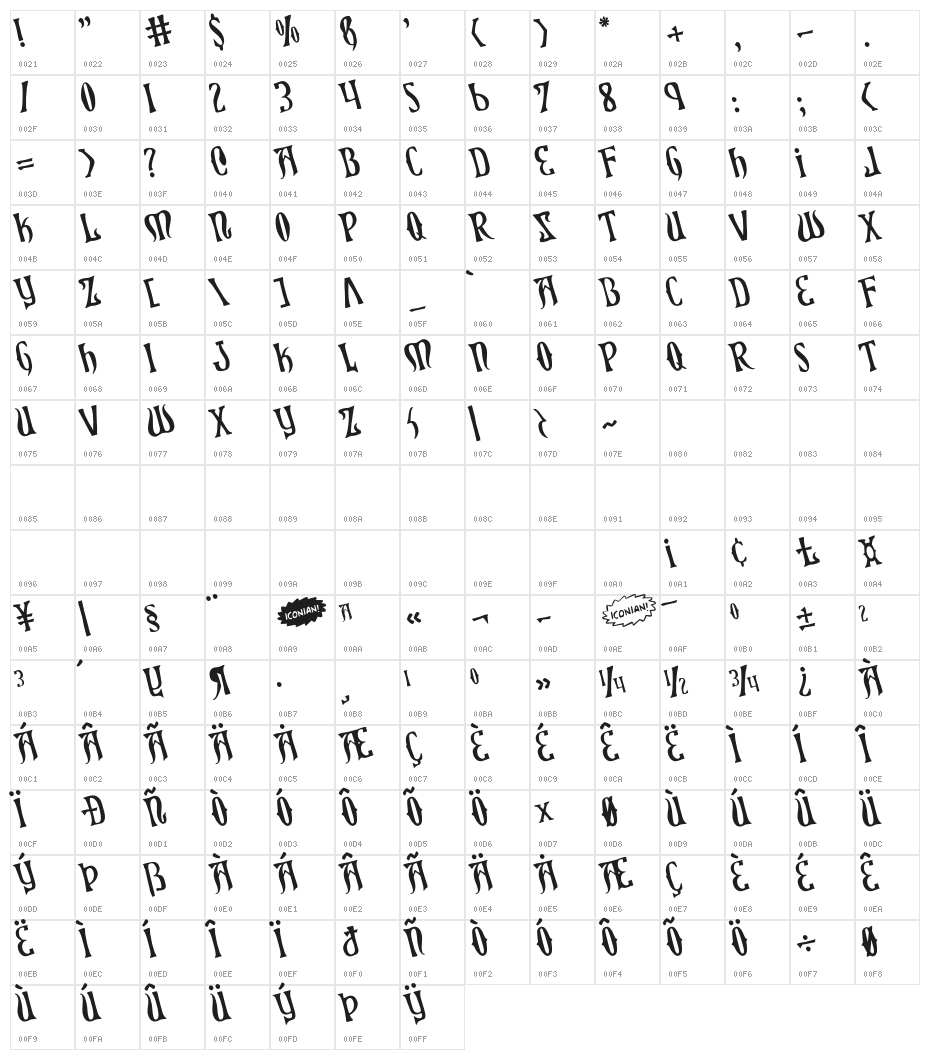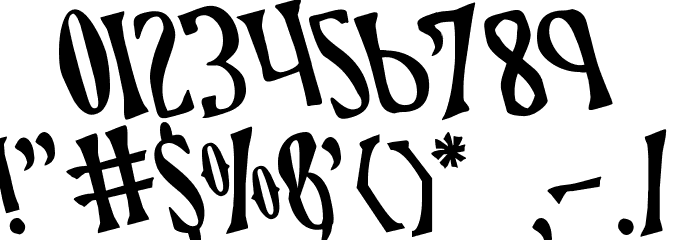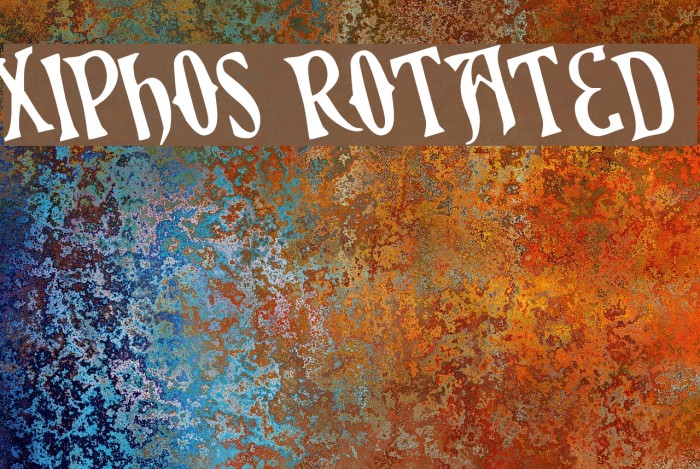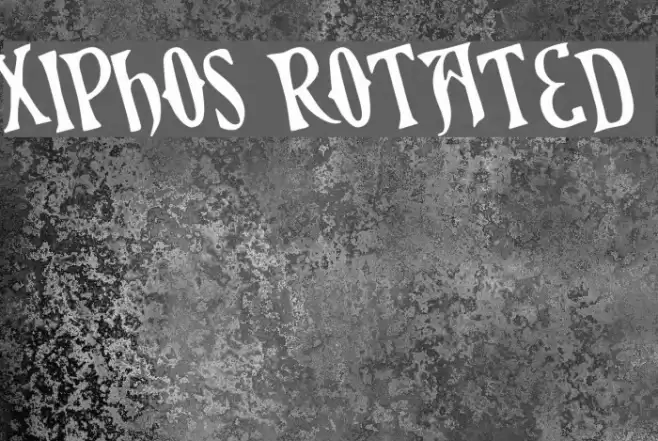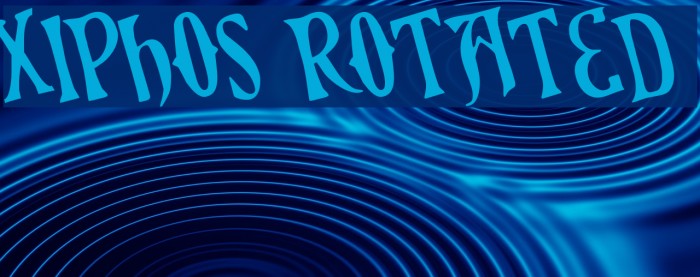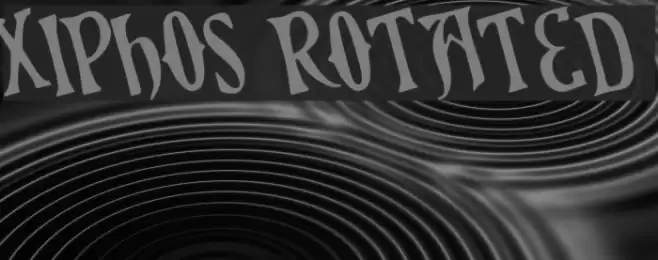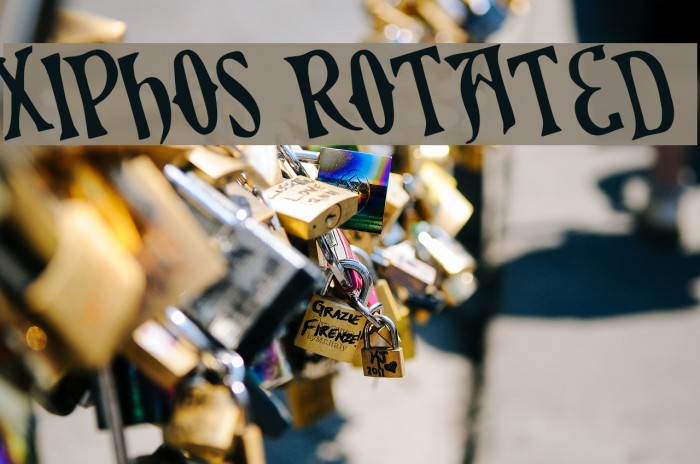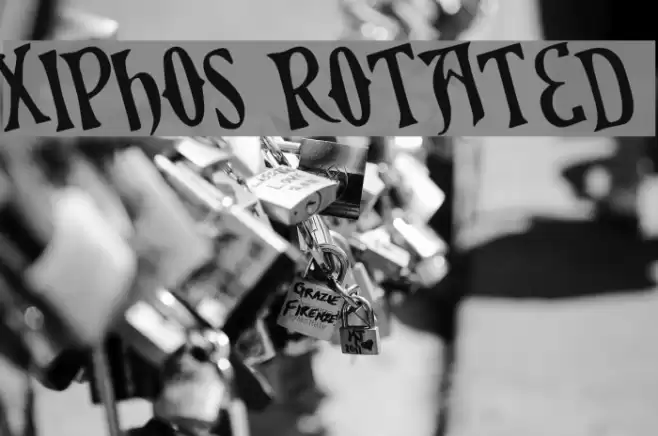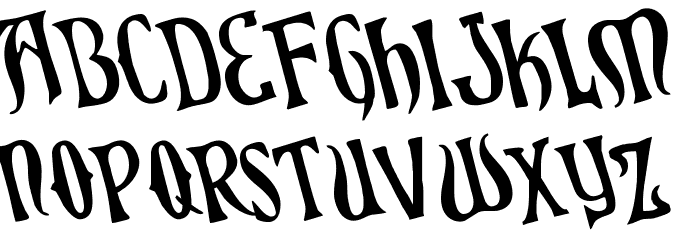
Xiphos Rotated Font
| 全体的なスタイル | Medieval, Energetic, Decorative |
| おすすめプロジェクト | Ideal for fantasy book covers, medieval-themed event posters, video game titles, and historical reenactment materials. |